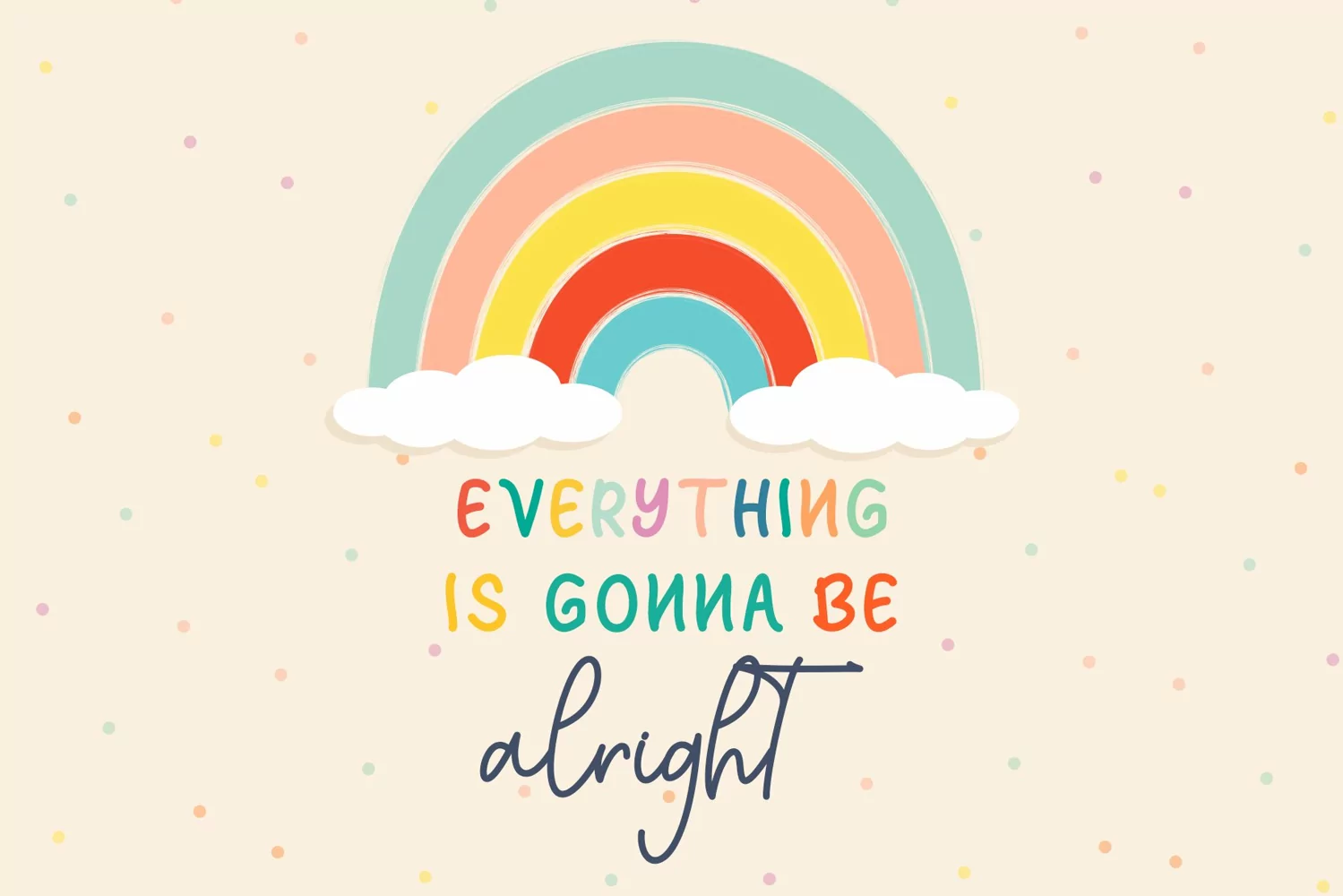
Sun Summer is a fun and playful display font. It has a cute style and great readability. It’s perfect for cards, branding, stationery, blog designs, custom art, quotes, custom stamps, custom embossers, and so much more!
1. Uppercase
2. Lowercase
3. Alternate & Ligature
4. Number & Punctuation